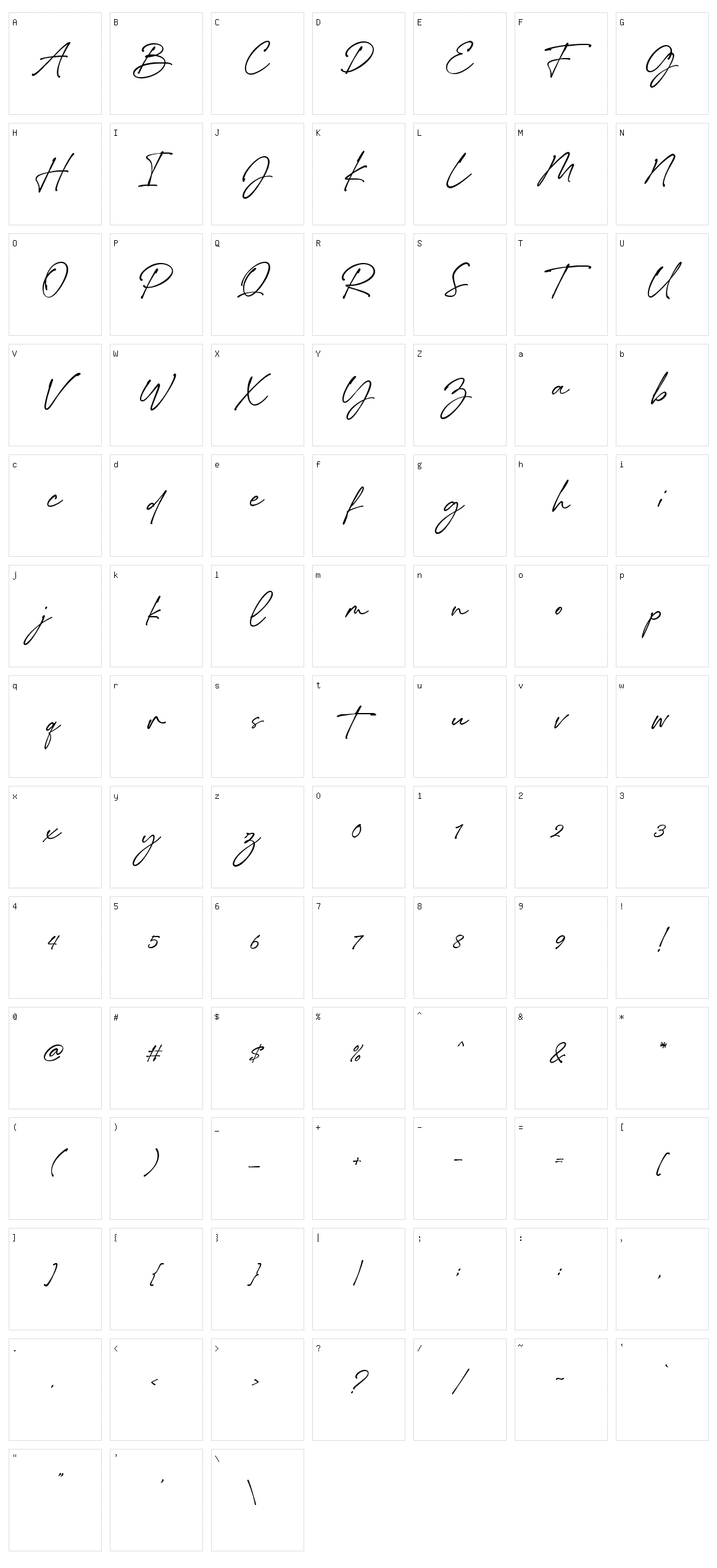
The free font Stickwithu is carefully designed by Redy Studio, showcasing a thoughtful balance of creativity and usability and falls under the Script font style. When you download the ZIP file, it contains only 4376.98 KB of font files, making it lightweight and quick to download. Please review the license details below to understand permitted usage and distribution rights. If license information is not available, we recommend using this font for personal projects only or contacting the author directly for commercial usage permissions.